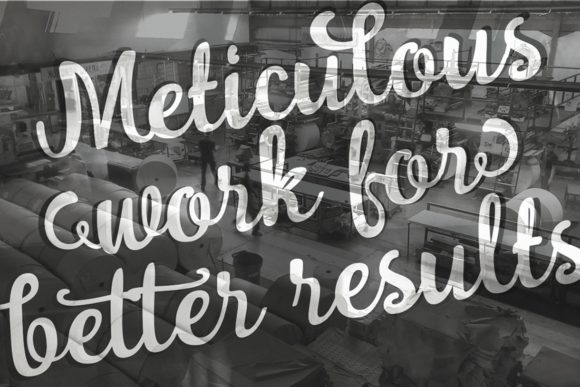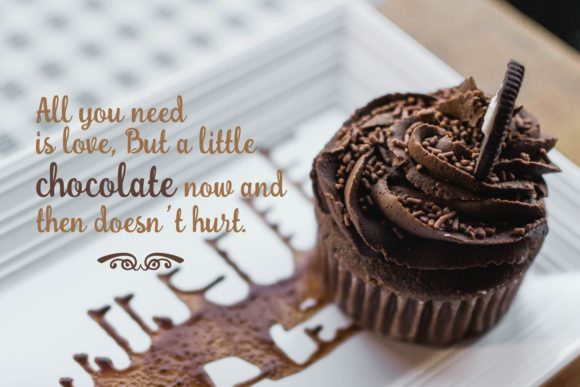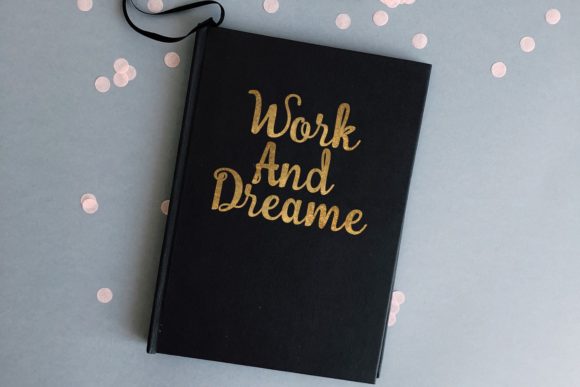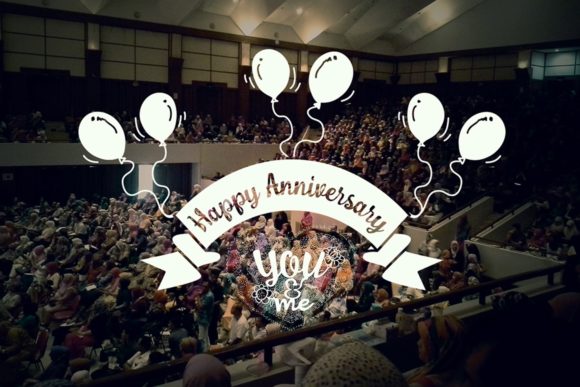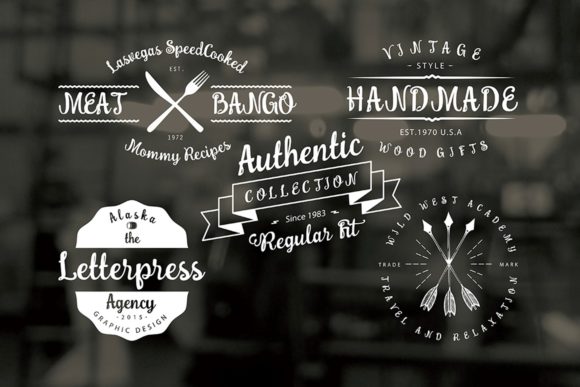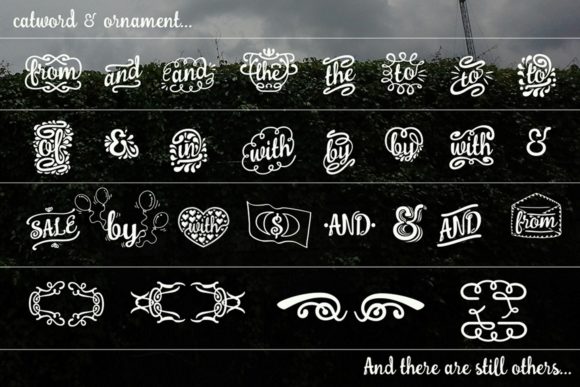
The Perfect Recipe for Your Next Design Project
There’s something magical about creating something from scratch, and as designers, we’ve all experienced that thrill of bringing a new idea to life. For me, it’s the moment when the words start flowing, and the design begins to take shape. It’s like baking a batch of brownies – you add a dash of creativity, a pinch of imagination, and voilà! You get a delicious result that’s sure to impress.
Speaking of brownies, have you heard about the Brownies Font? This gorgeous script font is a game-changer for any designer looking to add a touch of elegance and sophistication to their work. With its calligraphy style, decorative characters, and dancing baseline, Brownies Font is the perfect ingredient to take your designs to the next level.
Brownies Font Key Features
- Unique Characteristics: The Brownies Font features a unique, hand-drawn design with a mix of bold and cursive elements, giving it a distinctive and eye-catching appearance.
- Font Style: The font comes in a single style, but with multiple weights, including Light, Regular, and Bold, allowing designers to choose the perfect weight for their project.
- Language Support: The font supports a wide range of languages, including Latin, Cyrillic, and Greek scripts, making it suitable for global design projects.
Brownies Font Review
Overall, I think Brownies Font is a cute and playful option for designers looking to add a touch of whimsy to their projects. ✨ The font’s rounded edges and loose connections make it feel friendly and approachable, which is perfect for children’s books, greeting cards, or other projects where a lighthearted tone is desired.
One of the things that really works well with Brownies Font is its versatility. ✨ It comes in a range of weights, from Light to Bold, which makes it easy to use in a variety of contexts. The font also works well for both body text and display headlines, which is a big plus in my book.
Limitsations:
- ⚠️ The font may not be the best choice for projects that require a lot of sophistication or elegance. Brownies Font is a bit too playful and casual for those types of projects.
- ⚠️ Some users may find the font’s connections to be a bit too loose, which can make it difficult to read at small sizes.
- ⚠️ The font’s rounded edges may not be suitable for projects that require a lot of sharp angles or geometric shapes.
Overall, I think Brownies Font is a fun and creative option for designers who want to add a touch of personality to their projects. While it may have some limitations, it’s a great choice for projects that require a lighthearted and approachable tone.
The Brownies Font is a great choice for creating playful and whimsical designs. Some common use cases include:
1. Social media graphics and ads.
2. Food and beverage branding.
3. Children’s products and educational materials.
4. Party invitations and decorations.
Alternatives to Brownies Font for Designers
Playfair Display is an elegant and luxurious serif font, perfect for creating a sophisticated and high-end look. It’s ideal for use in headings and titles, adding a touch of sophistication to any design. Compared to Brownies Font, Playfair Display is more refined and formal, making it suitable for luxury brands and high-end publications.
Great Vibes is a beautiful and elegant script font, perfect for adding a touch of personality to any design. It’s ideal for use in titles, headings, and quotes, adding a sense of warmth and approachability. Compared to Brownies Font, Great Vibes is more flowing and cursive, making it suitable for creative and artistic projects.